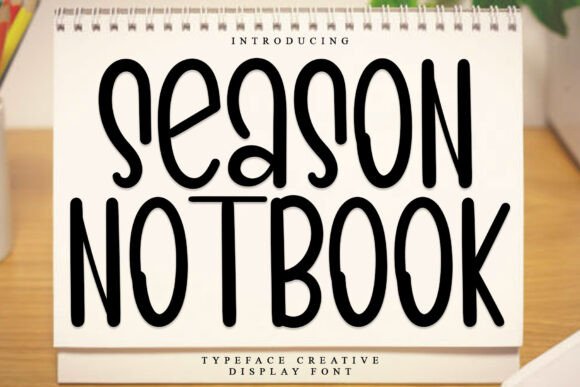
Season Notebook: The Festive Display Font for Holiday Creations
If you are looking to elevate your holiday product line, Season Notebook is a festive and happy typeface that captures the spirit of the holiday season with its unique decorative flair. As a creator who sells handmade goods, I know that the right Display font can transform a simple label into a cherished keepsake. This Fonts collection brings a touch of charm to your designs, making it an essential asset for anyone crafting physical products or digital downloads.
How Season Notebook Enhances Handmade Labels and Product Packaging
Season Notebook stands out as a festive and happy typeface that captures the spirit of the holiday season, making it perfect for creating eye-catching product labels. When designing packaging for candles, soaps, or baked goods, the decorative elements in this Display font add an immediate sense of quality and care. Customers often judge a product by its presentation, and using Season Notebook on tags or stickers signals that the item inside is special. Whether you are printing small hang-tags for boutique items or creating custom boxes for seasonal gifts, the unique flair of these Fonts ensures your brand identity remains consistent and memorable throughout the busy holiday rush.
Why Season Notebook Works Best for Greeting Cards and Stationery
Season Notebook is a festive and happy typeface that captures the spirit of the holiday season, which is exactly why it shines when used on greeting cards and stationery. The legible yet whimsical nature of this Display font allows you to write heartfelt messages that feel personal and professional. From wedding invitations with a winter theme to Christmas party invites, the decorative elements provide just enough personality without overwhelming the text. If you sell printable stationery sets, incorporating Season Notebook gives your digital files an instant upgrade, ensuring they look attractive and readable even at smaller sizes.
Using Season Notebook for Cricut and Silhouette SVG Projects
Season Notebook is a festive and happy typeface that captures the spirit of the holiday season, offering excellent clarity for cutting machines like Cricut and Silhouette. Crafters often struggle to find display fonts that cut cleanly while maintaining their artistic charm, but the unique flair of these Fonts makes them ideal for vinyl decals and heat transfer projects. You can easily create signs for front doors, window clings, or personalized ornaments where the text needs to be sharp and distinct. Because this Display font has strong structural integrity, it prevents issues like broken letters when scaling down for small stickers or scaling up for large wall art.
Perfect Applications for Season Notebook on Mugs and Apparel
Season Notebook is a festive and happy typeface that captures the spirit of the holiday season, making it a top choice for sublimation designs on mugs and t-shirts. When designing merchandise for a small shop, you need a typeface that looks good on both fabric and ceramic surfaces. The decorative elements of Season Notebook add a cozy, handcrafted feel that resonates with buyers looking for unique holiday gifts. By using this Display font for short phrases or names, you ensure the design remains readable from a distance while still showcasing the intricate details that make your products stand out in a crowded marketplace.
Boosting Brand Identity with Season Notebook in Digital Downloads
Season Notebook is a festive and happy typeface that captures the spirit of the holiday season, serving as a powerful tool for creators selling digital templates and printables. Buyers searching for high-quality Display fonts want assurance that the typeface will work seamlessly in their own projects, and the unique flair of Season Notebook delivers exactly that. Whether you are creating planner pages, social media graphics, or website headers, this set of Fonts helps establish a cohesive visual language. Including this typeface in your design assets can increase the perceived value of your digital products, encouraging customers to choose your templates over generic alternatives.
Season Notebook for Wedding Welcome Boards and Event Signage
Season Notebook is a festive and happy typeface that captures the spirit of the holiday season, but it also possesses the elegance required for wedding signage and event decor. The decorative elements allow you to create stunning welcome boards, table numbers, or menu cards that fit a rustic or vintage aesthetic perfectly. When paired with a clean sans serif font for instructions or details, the contrast highlights the charm of the Display style. For event planners or DIY brides, using Season Notebook ensures that every sign looks professionally designed, adding a layer of sophistication to the overall atmosphere of the celebration.
Practical Tips for Pairing Season Notebook with Other Typefaces
Season Notebook is a festive and happy typeface that captures the spirit of the holiday season, but it works best when balanced with complementary styles. Since this is a Display font with significant decorative elements, it should generally be reserved for headlines, titles, or short phrases rather than long paragraphs. To maintain readability, pair Season Notebook with a simple sans serif font for body text or a delicate script font for accents. This combination creates a harmonious hierarchy that guides the viewer's eye through your design. For example, using a bold serif font for secondary headings alongside Season Notebook can create a rich, layered look that feels curated and intentional.